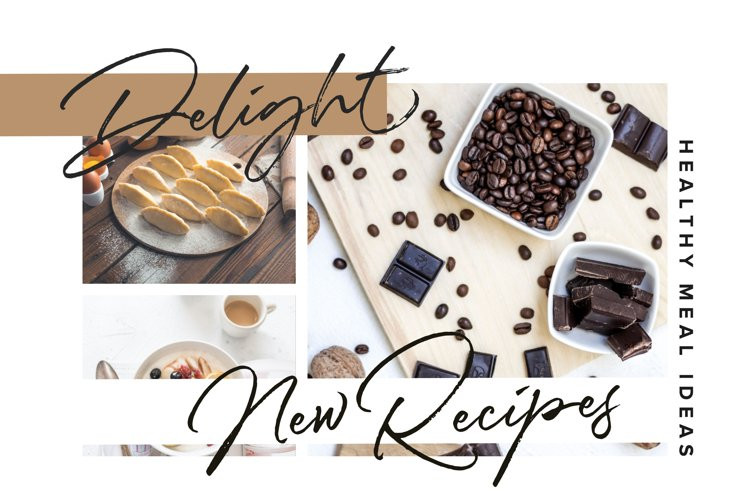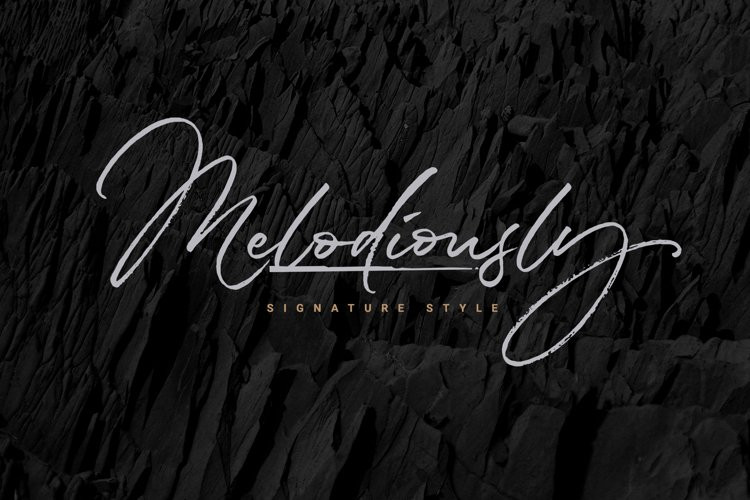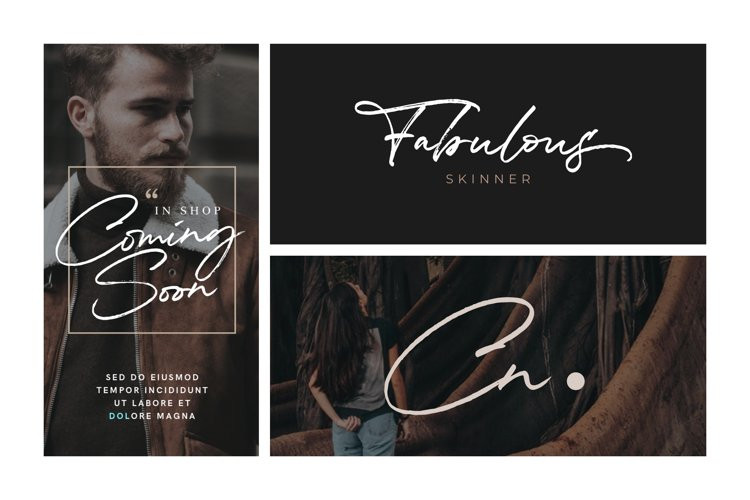
Melodiously Font
Melodiously FontMelodiously Script is handwritten signature style font with stunning brush characters. Include OpenType alternates and common ligatures. Ideal for logos, name tag, handwritten quotes, product packaging, merchandise, social media & greeting cards.